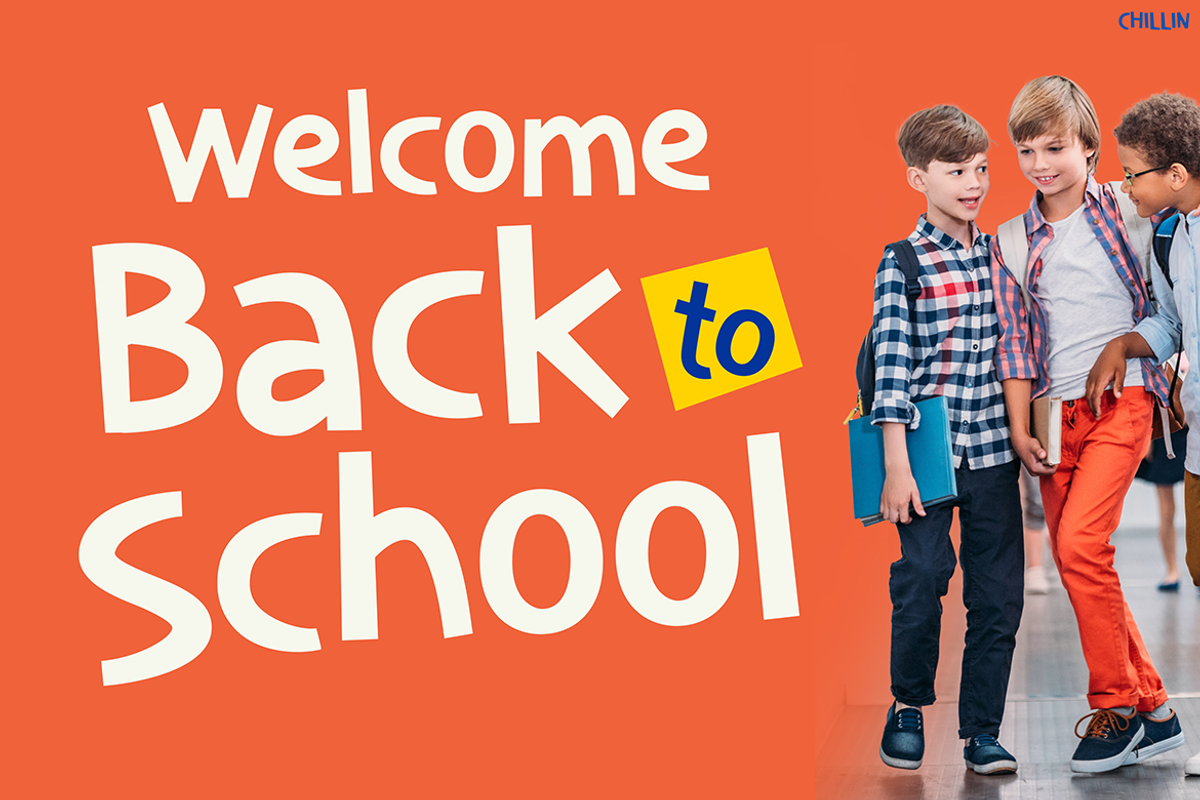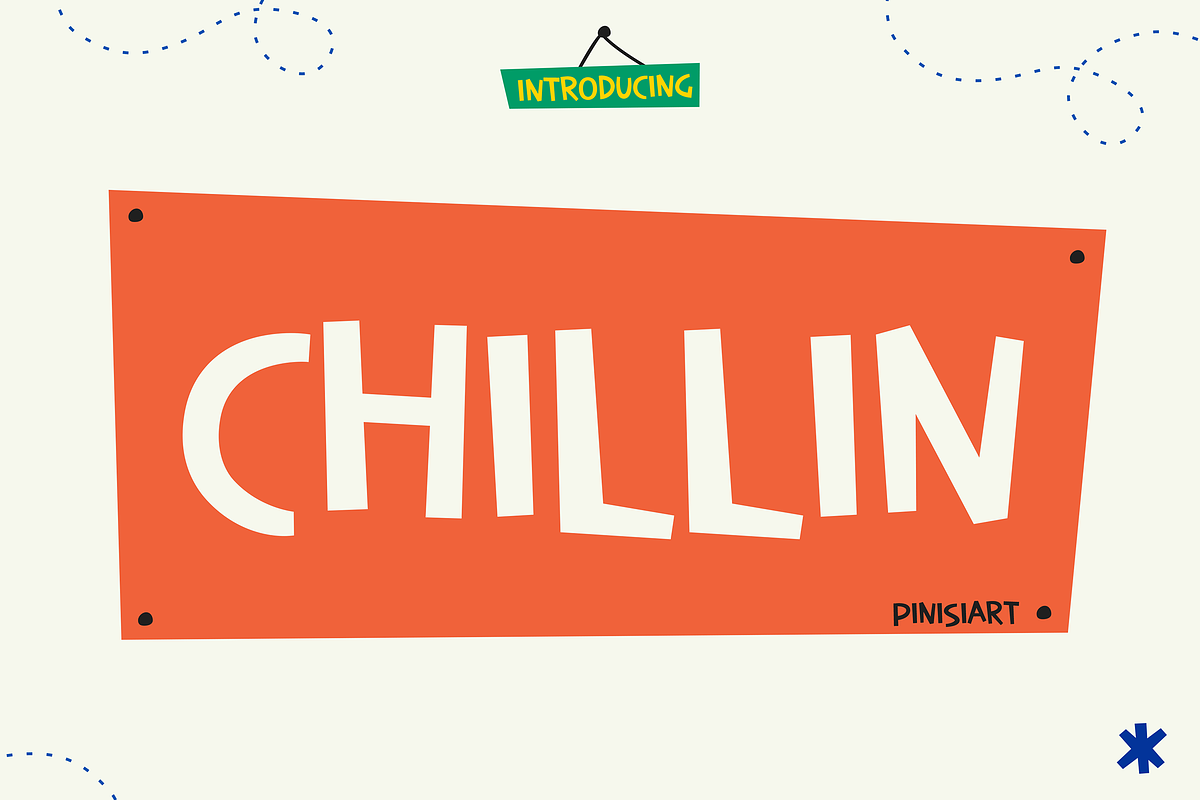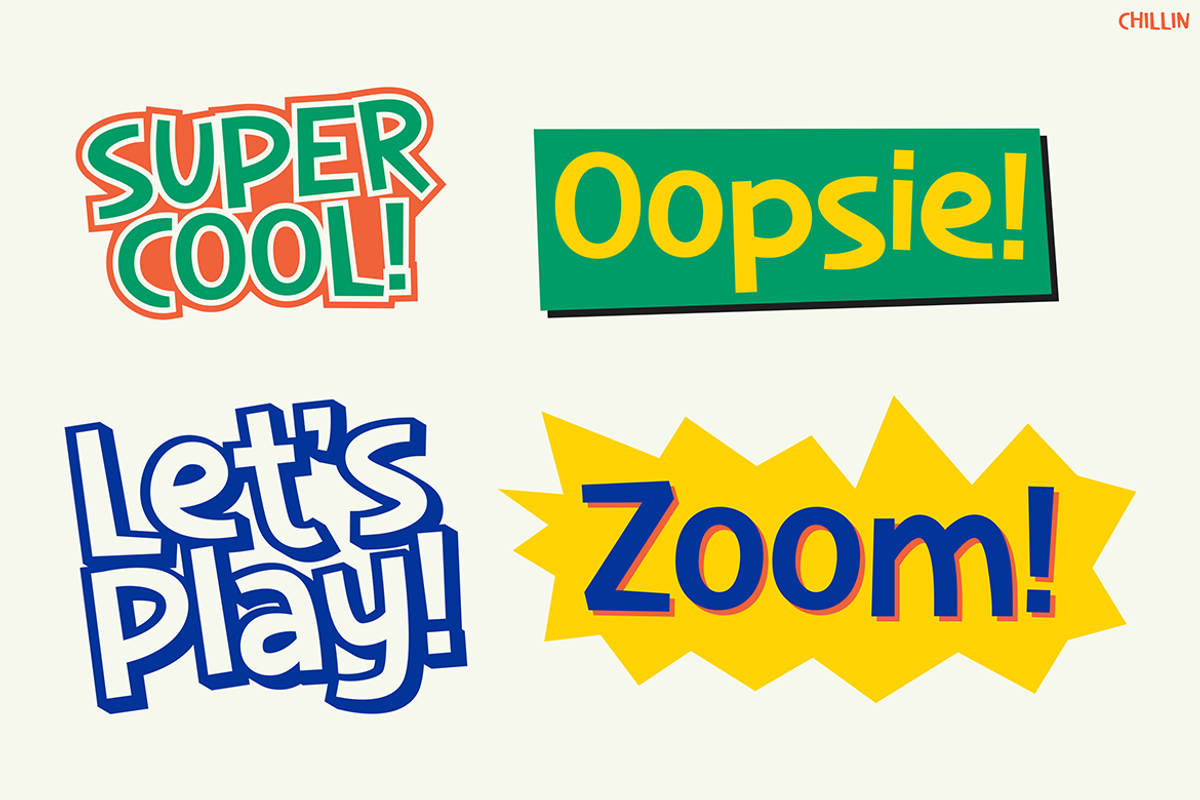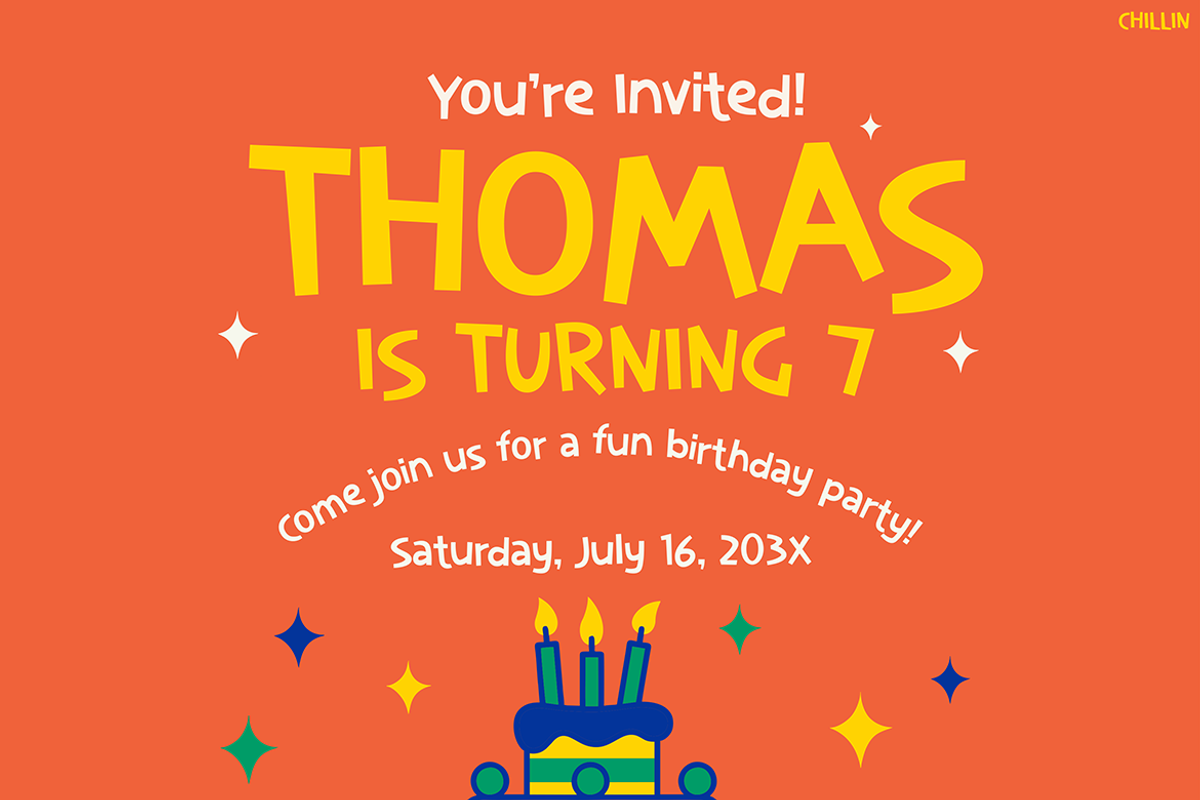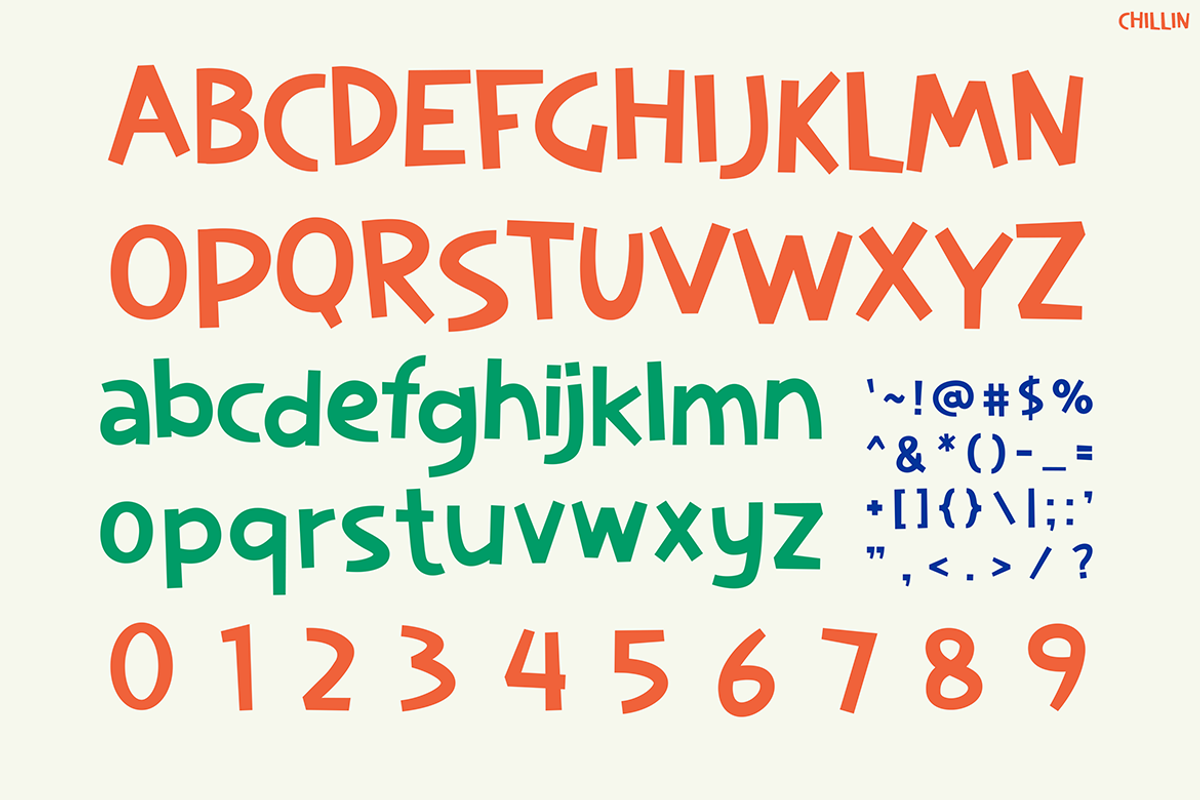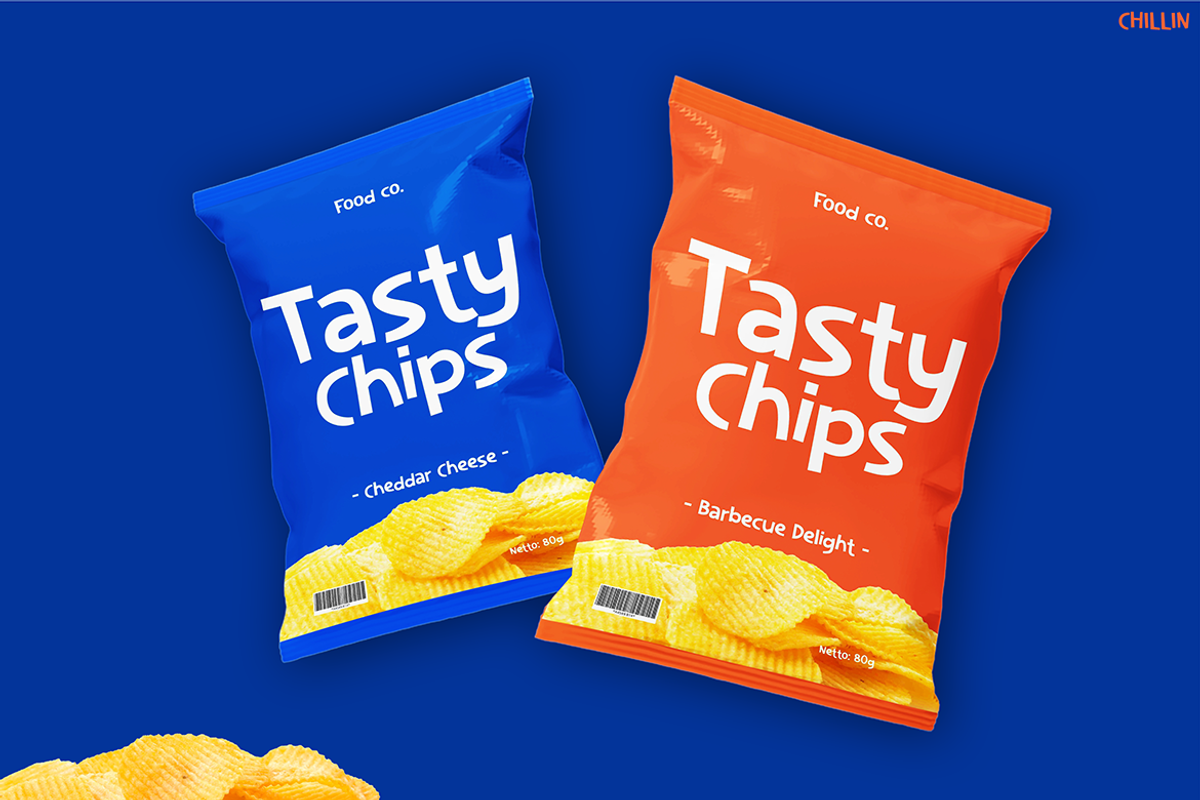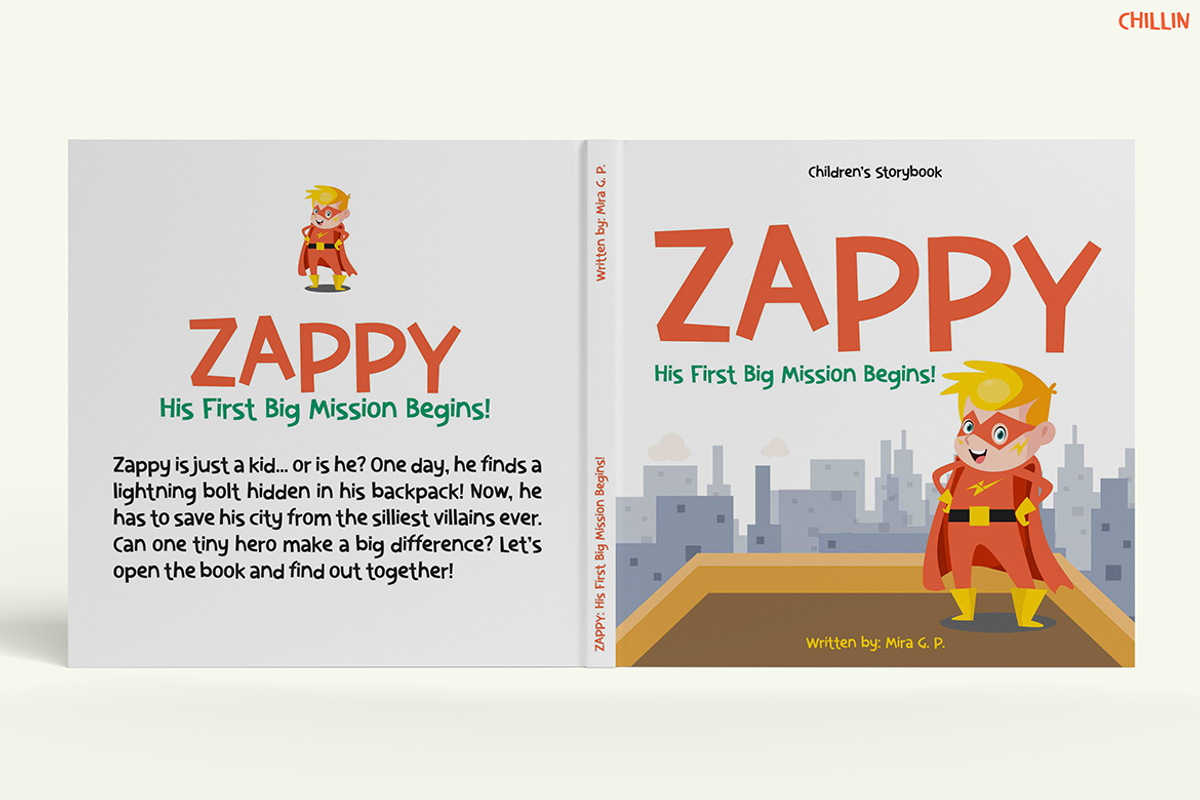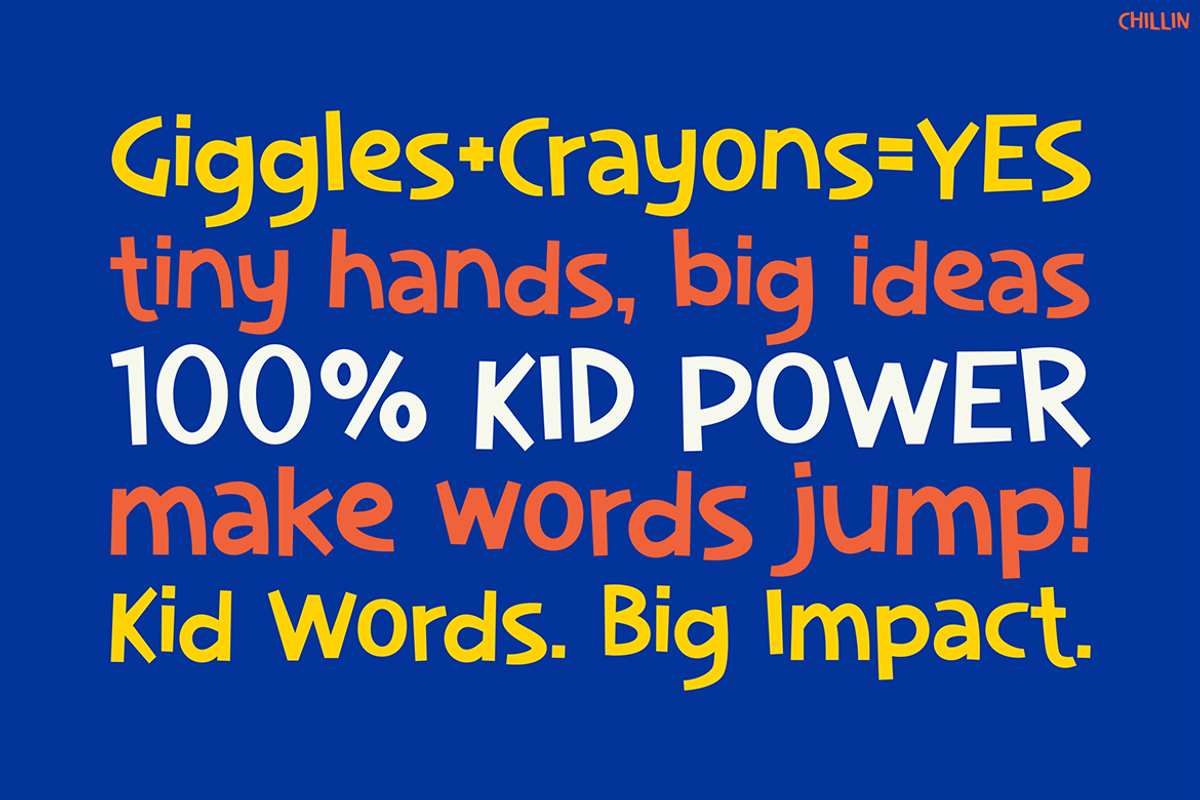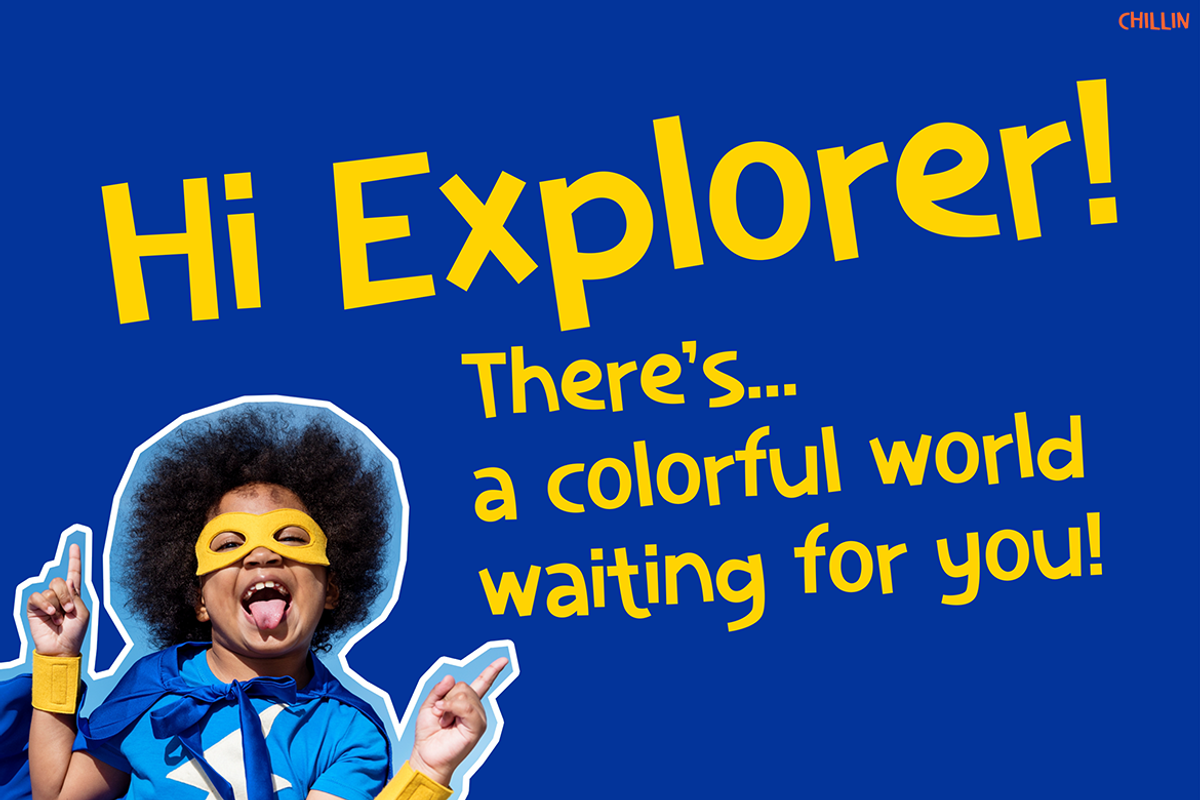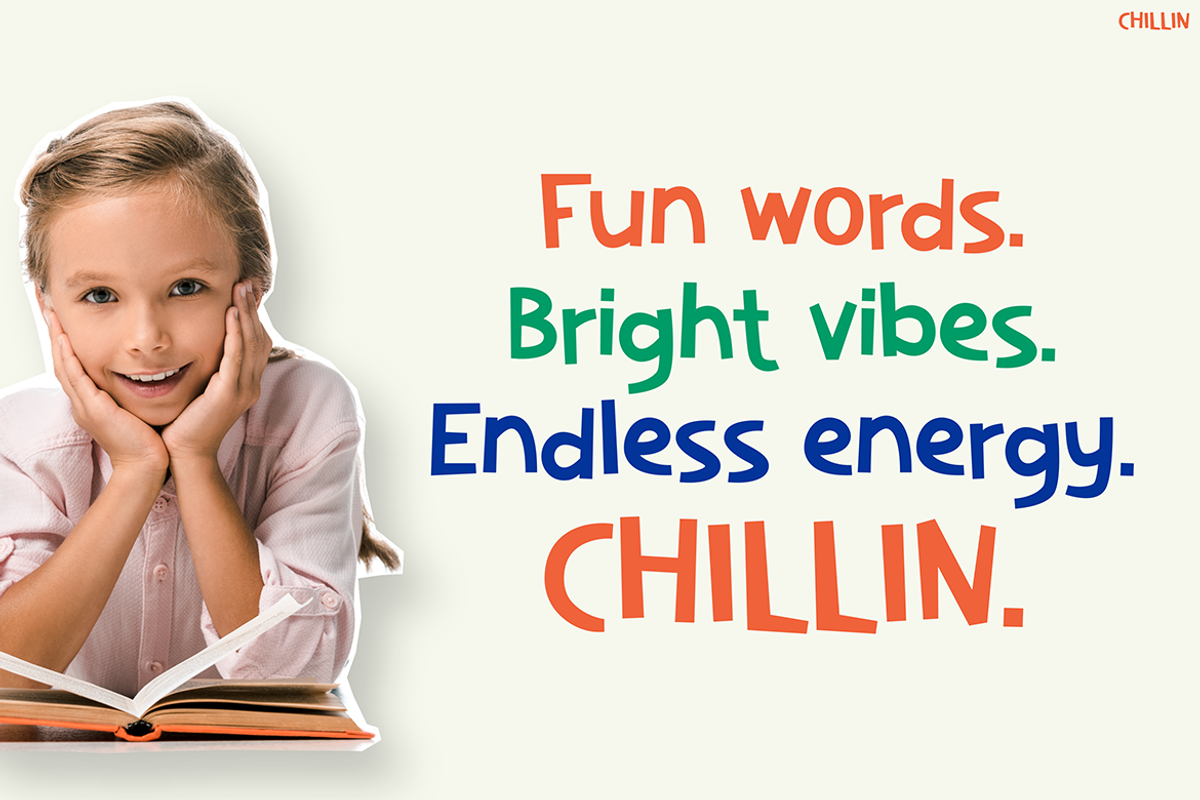
Chillin
Kids Font Chillin is the ultimate typeface for bringing words to life in a playful, vibrant, and kid-friendly way. With its bold strokes, bouncy letterforms, and quirky hand-drawn feel, this font instantly adds energy to any design. Moreover, its rounded edges and cheerful spacing make it warm and approachable, while still maintaining excellent legibility—even for younger readers. Whether you’re designing for print or digital, this font’s aesthetic charm turns everyday words into joyful expressions. In addition, it supports multiple languages and includes fun extras like numbers and symbols, making it a smart and versatile choice for various creative needs.